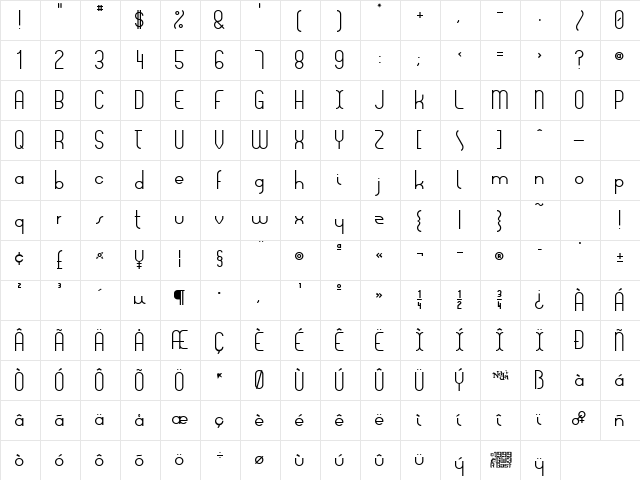
Lois Ann Regular
Design Context for Lois Ann Typeface
Lois Ann is a composed and adaptable typeface that performs quietly and consistently across a wide range of design contexts.
Pro Tip: Use Lois Ann in both headline and body roles to test its range before committing to a single application.